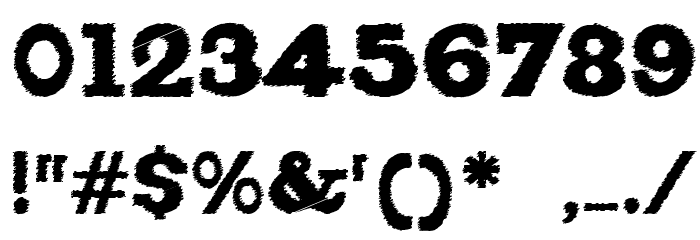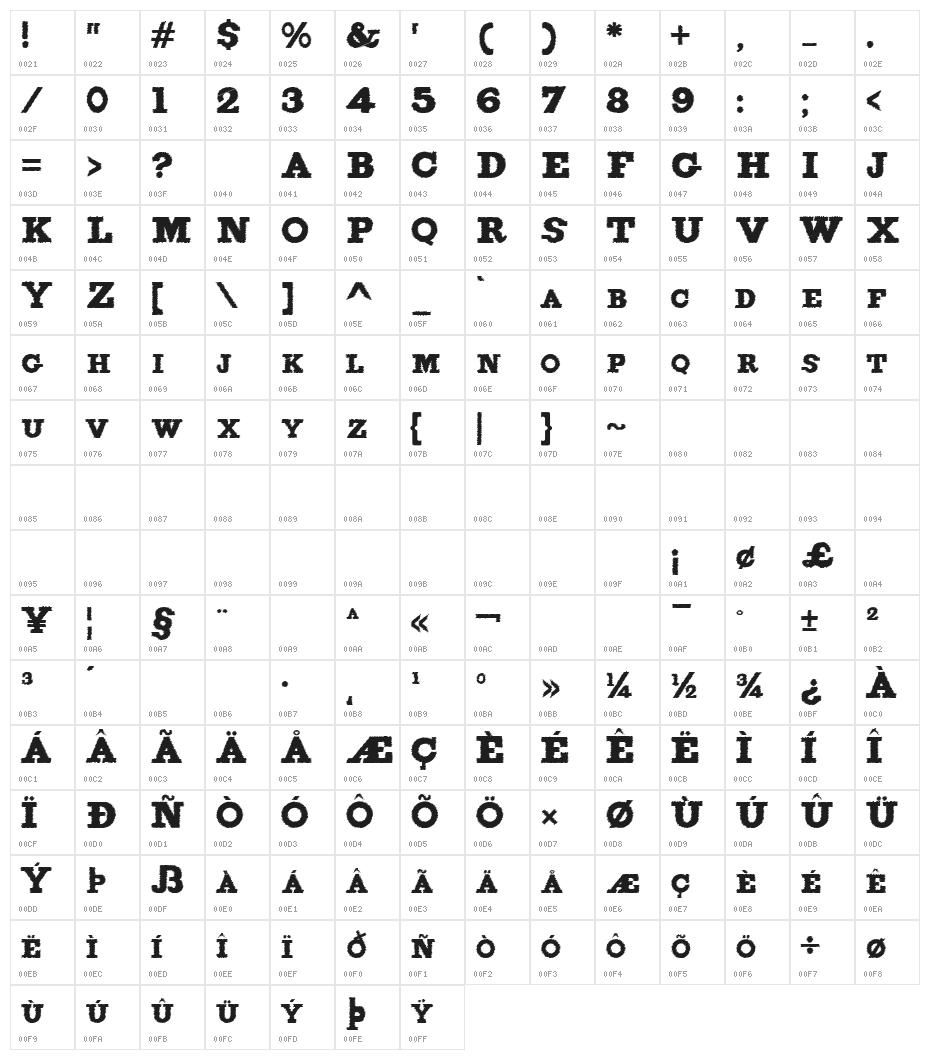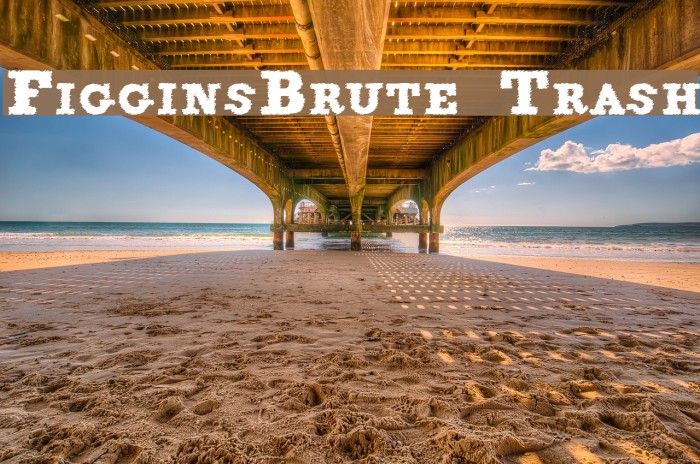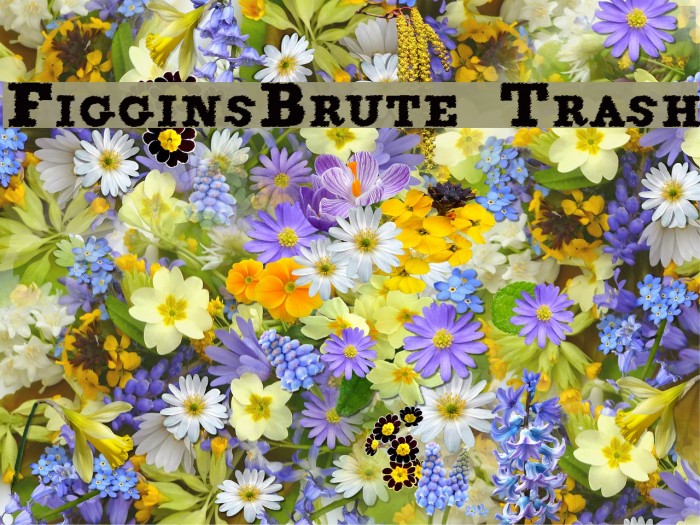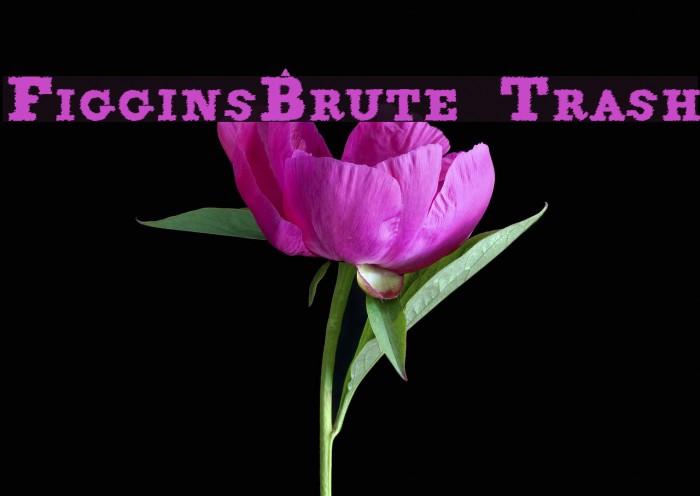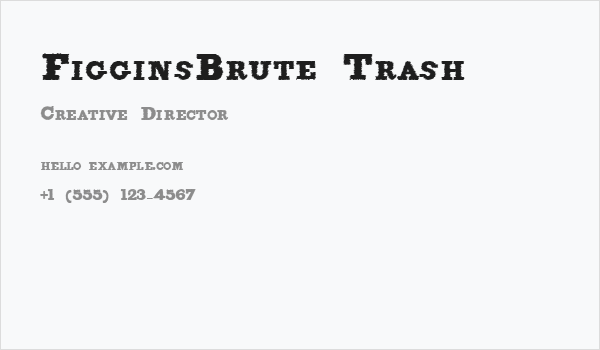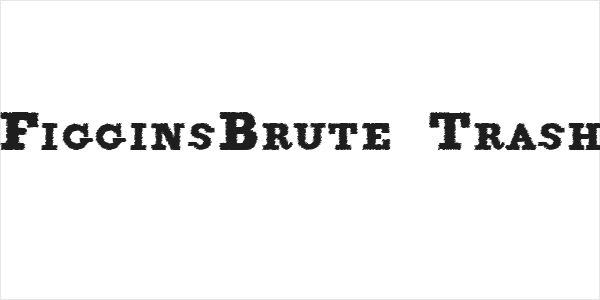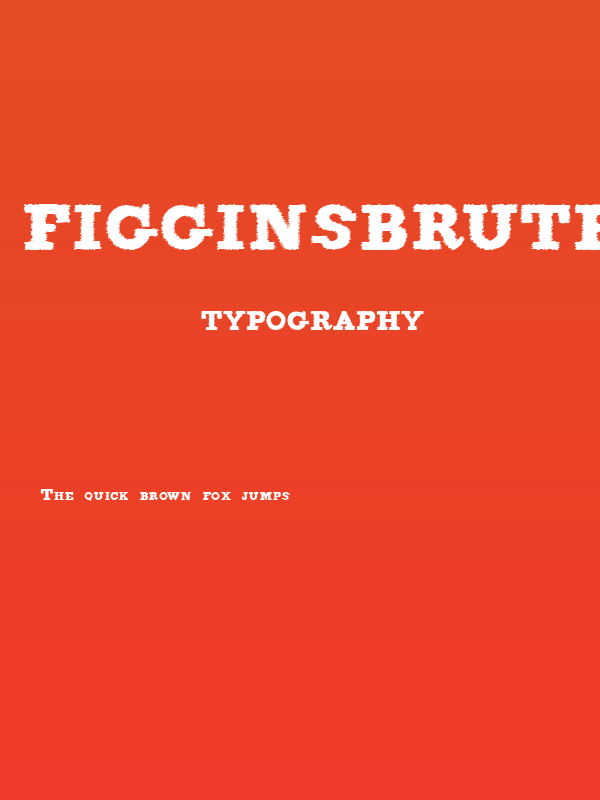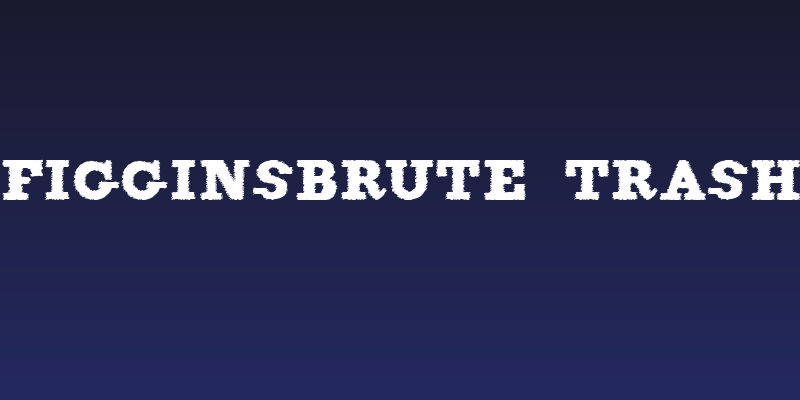
FigginsBrute Trash Font
FigginsBrute Trash Description
This font features a bold and rugged style, characterized by its distressed and textured appearance. The letters have a strong presence with thick strokes and a slightly uneven, rough edge that gives it a vintage, industrial feel. The uppercase and lowercase letters maintain a consistent weight, contributing to its boldness. Numbers and special characters follow the same design, ensuring uniformity across all glyphs. The font's unique texture adds a layer of depth and character, making it stand out in any design project.
| Overall Style | Vintage, Industrial |
| Proposed Projects | Ideal for posters, branding, logos, and any design requiring a strong, vintage aesthetic. |